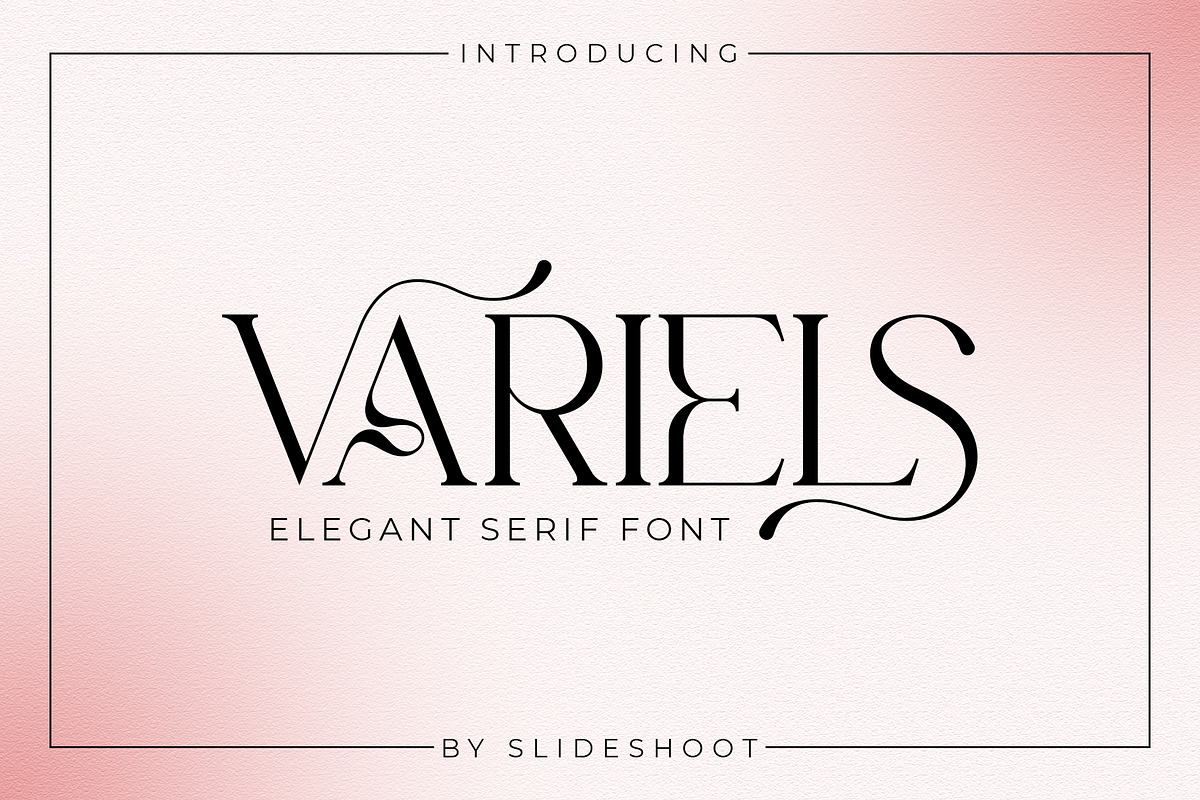
Variels Elegant Serif Font Free Download
Variels Elegant Serif Font Free Download is a sophisticated and timeless serif typeface designed to add elegance and refinement to your projects. With its sharp serifs, clean lines, and graceful design, this font is perfect for luxury branding, editorial design, invitations, and high-end marketing materials.
The font's classic yet modern style makes it versatile for both traditional and contemporary designs. Whether you’re working on upscale packaging, a premium brand, or elegant event invitations, Variels brings a touch of class and elegance to your typography.